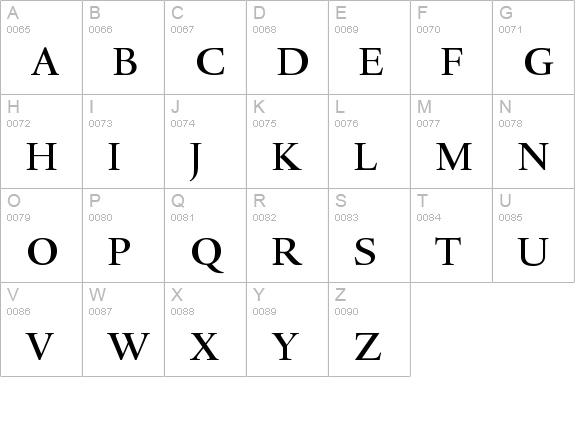
DTLHaarlemmerSD-Medium is a balanced, medium-weight variant in the DTLHaarlemmerSD typeface family \xE2\x80\x94 well suited to sub-headlines, navigation, and balanced editorial work.
The DTLHaarlemmerSD-Medium font is a versatile and elegant typeface that combines classic elements with a contemporary twist. Its medium weight strikes the perfect balance between readability and style, making it ideal for a wide range of design projects. Whether used for body text or headlines, this font exudes sophistication and professionalism. And the best part? DTLHaarlemmerSD-Medium is completely free to download at FontsMarket.com. Take advantage of this amazing offer and enhance your designs with this beautiful and timeless font today!